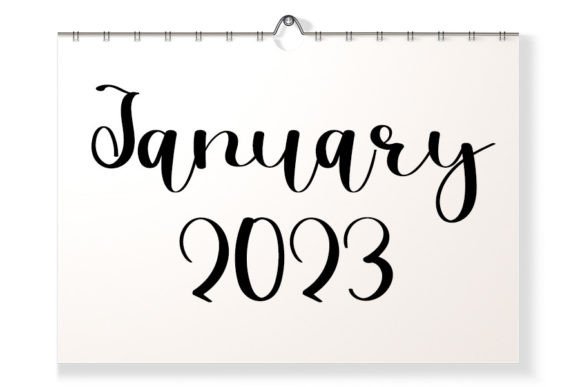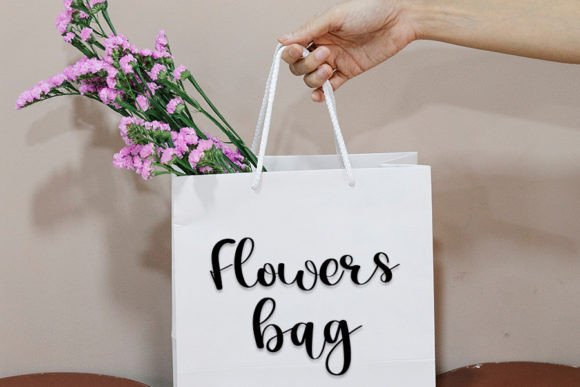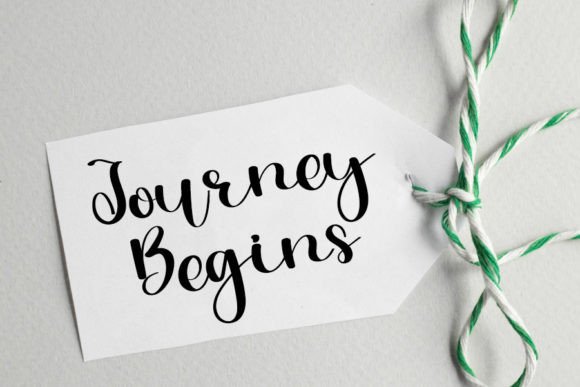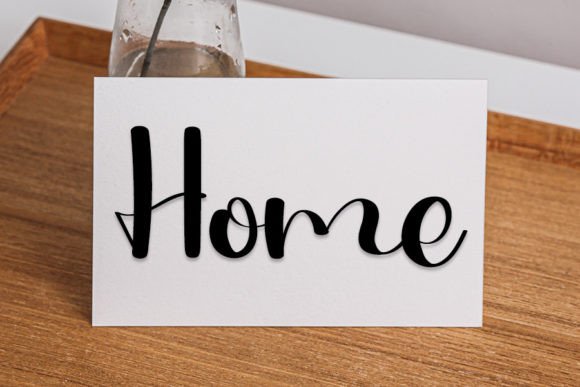
A Neat and Elegant Handwritten Typeface
Water is a refined handwritten font crafted to bring sophistication and warmth to any design. With smooth, flowing curves and balanced strokes, this font feels modern yet timeless. Whether you’re working on wedding invitations, branding materials, or social media graphics, Water adds a polished, personal touch that makes your work stand out.
Its versatile style works beautifully across professional and personal projects alike.
Water is a font you’ll love using over and over again. It’s ideal for wedding invitations, save-the-date cards, and thank you notes. The graceful script creates a romantic feel that makes every occasion memorable.
In branding, Water shines on logos, product packaging, and business cards. The elegant handwritten style gives your brand a premium, approachable look.
This font also works perfectly for digital designs, like social media posts, website banners, and blog headers. The balanced letterforms help your content look clean and professional while adding a unique touch.
Water is also great for posters, art prints, and handmade gifts. Its smooth lines and neat shapes bring character to every message you want to share.
Even with its decorative flourishes, Water remains clear and legible at all sizes. Smooth connections and consistent spacing help your text look tidy, whether you’re designing large headlines or small captions.
For a modern, clean layout, pair Water with a minimalist sans-serif font. Use Water for titles and highlights, and the sans-serif for supporting text. This combination keeps your design fresh and polished while showcasing the script’s elegance.
To make Water stand out, use soft backgrounds and neutral colors. Shades like ivory, blush, and pale gray allow the script to pop without overwhelming your design.
When designing invitations or packaging, consider adding delicate borders or subtle illustrations that match the handwritten style.
On social media, embrace white space to keep your posts clean and your text easy to read.
Think about the mood you want to create. Water is perfect for designs that should feel refined, elegant, and timeless.
Water isn’t just another script font—it’s a creative asset that brings beauty and sophistication to every project. From professional branding to personal keepsakes, this font adapts seamlessly and adds an elegant finish to your designs.
Adding Water to your font collection means you’ll always have a versatile, stylish option ready to use. Whether you’re creating logos, invitations, or digital content, this font helps every idea feel unique and unforgettable.